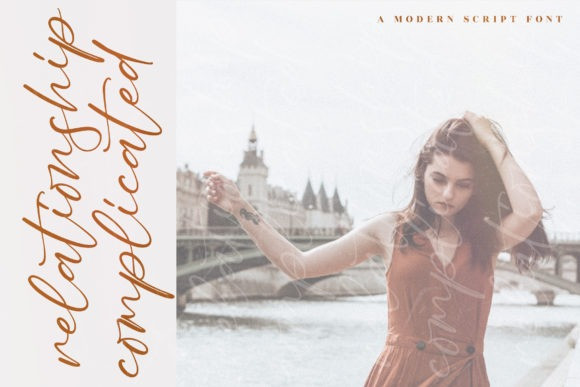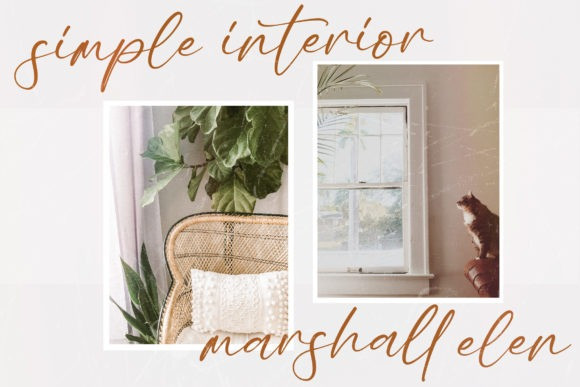
Sumattera Font
Sumattera is a thin lettered and delicate script font. It is the best choice for creating eye catching logos, branding and quotes. This font is PUA encoded which means you can access all of the amazing glyphs and ligatures with ease!